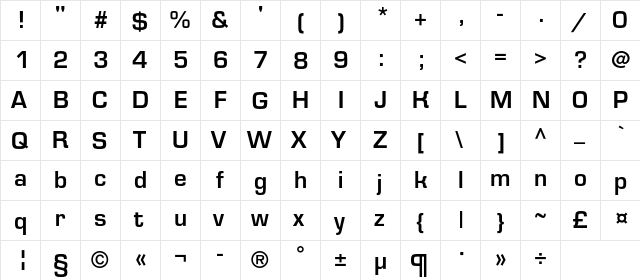
EurofontMediumC Regular
Design Context for EurofontMediumC Typeface
EurofontMediumC takes a measured approach to typography — its balanced proportions and neutral character make it a reliable workhorse for both digital and print work.
Pro Tip: Pair EurofontMediumC with a font of contrasting weight or personality to build a more expressive typographic hierarchy.